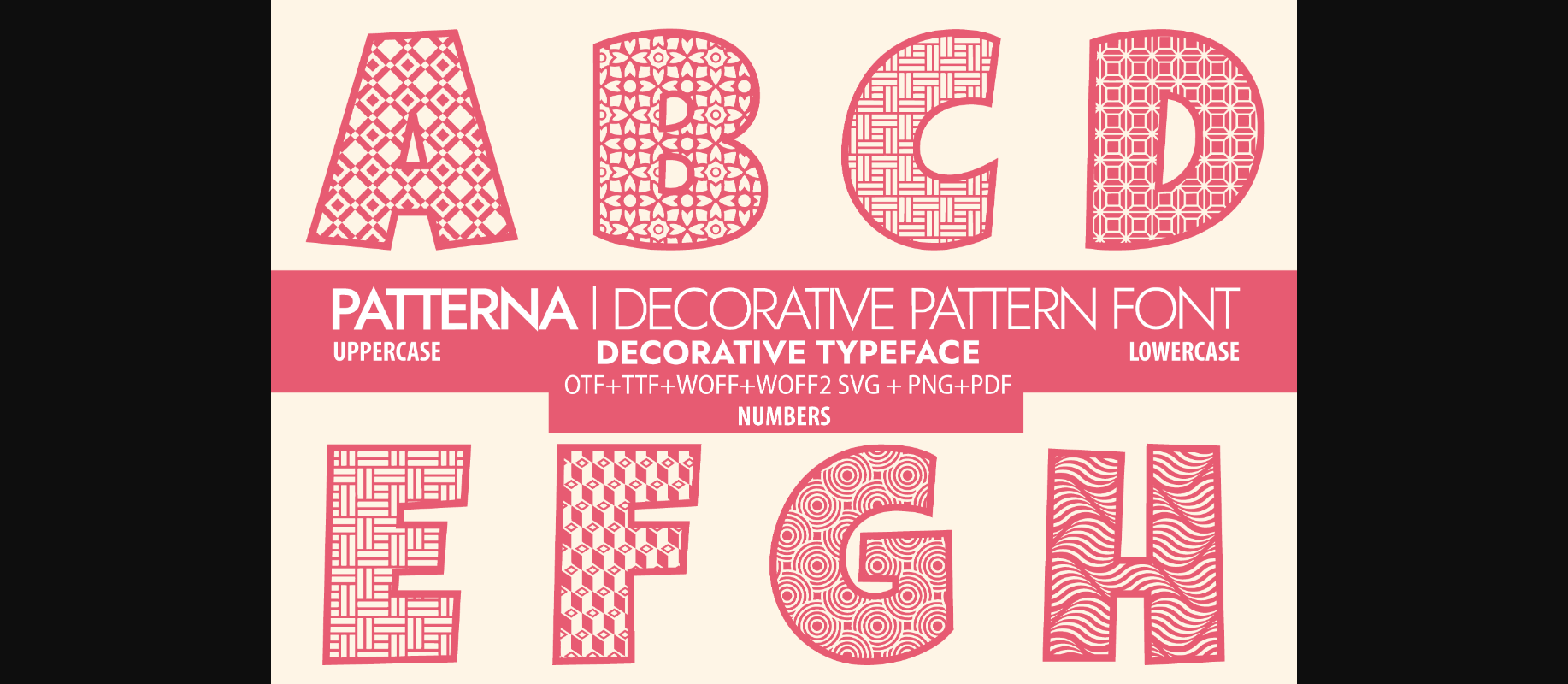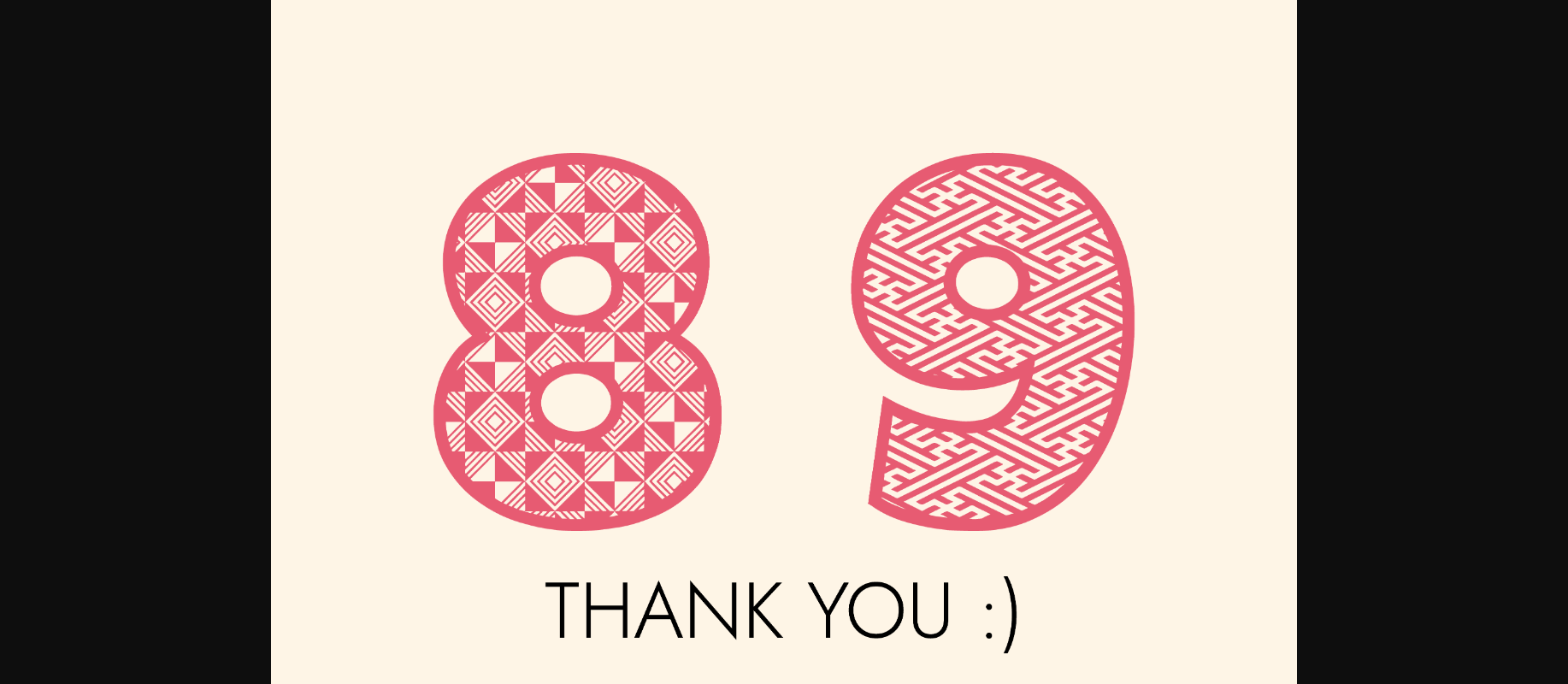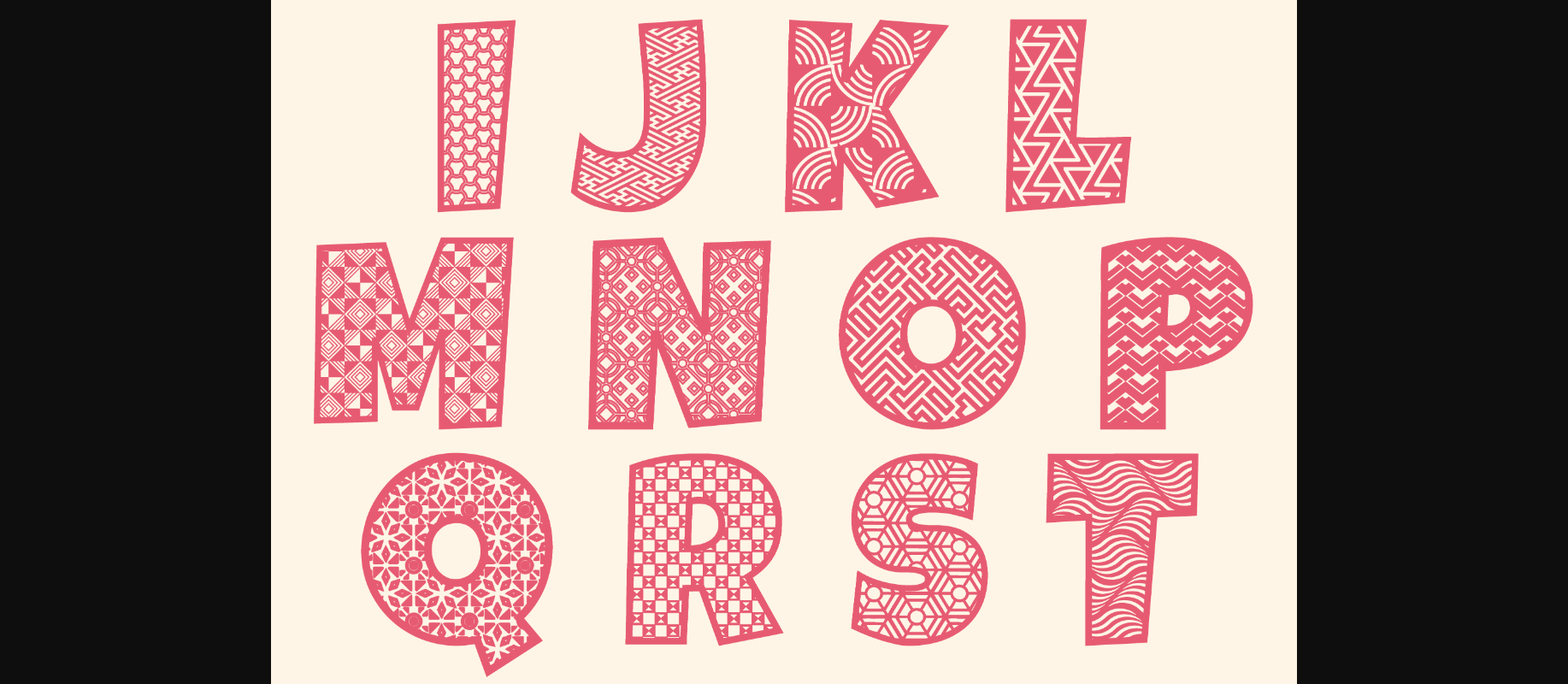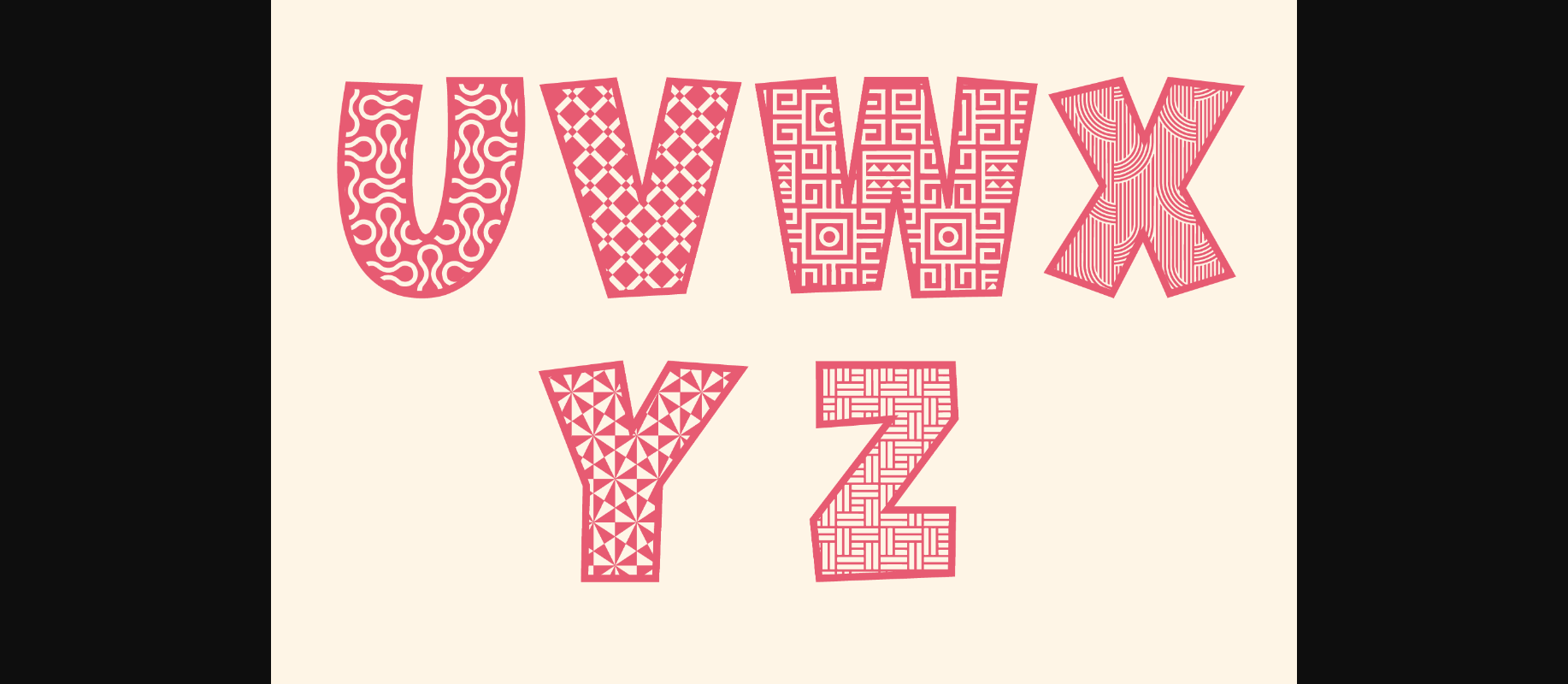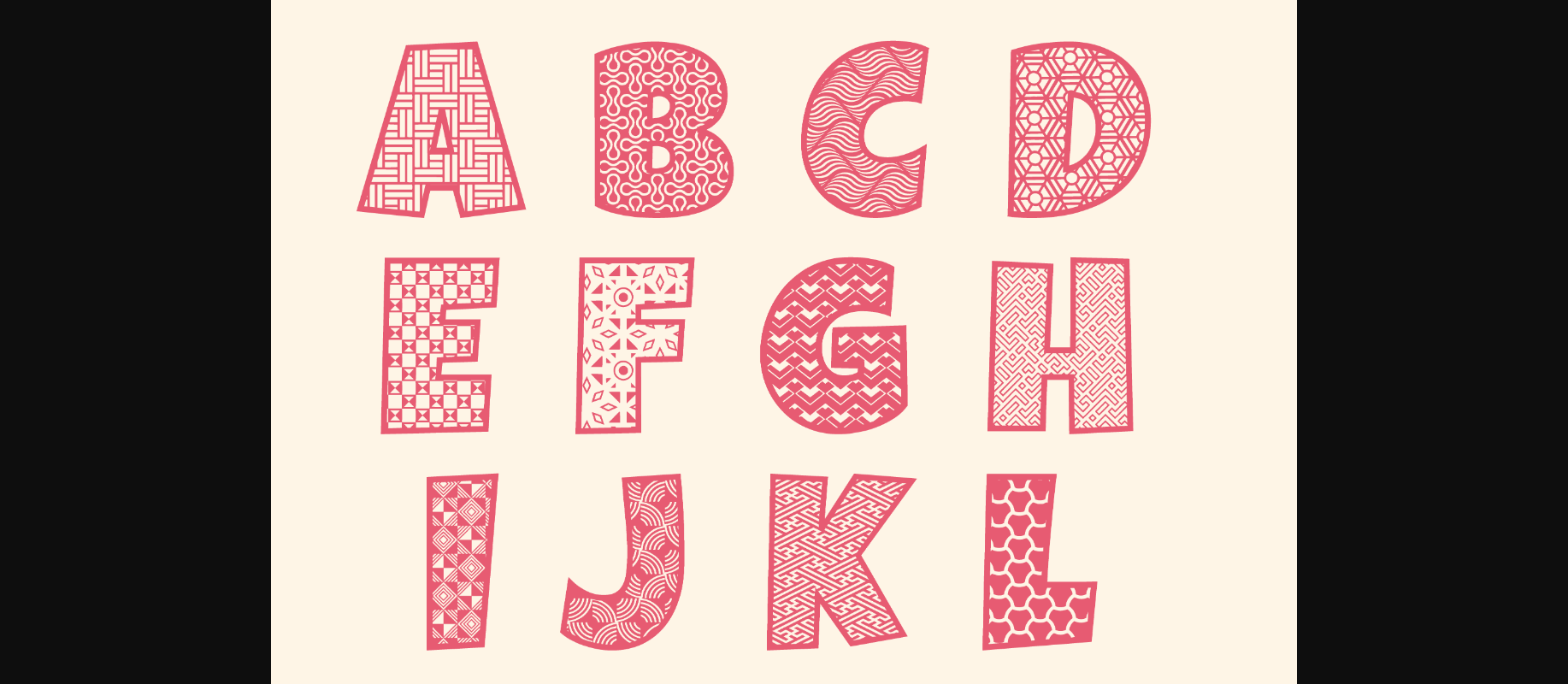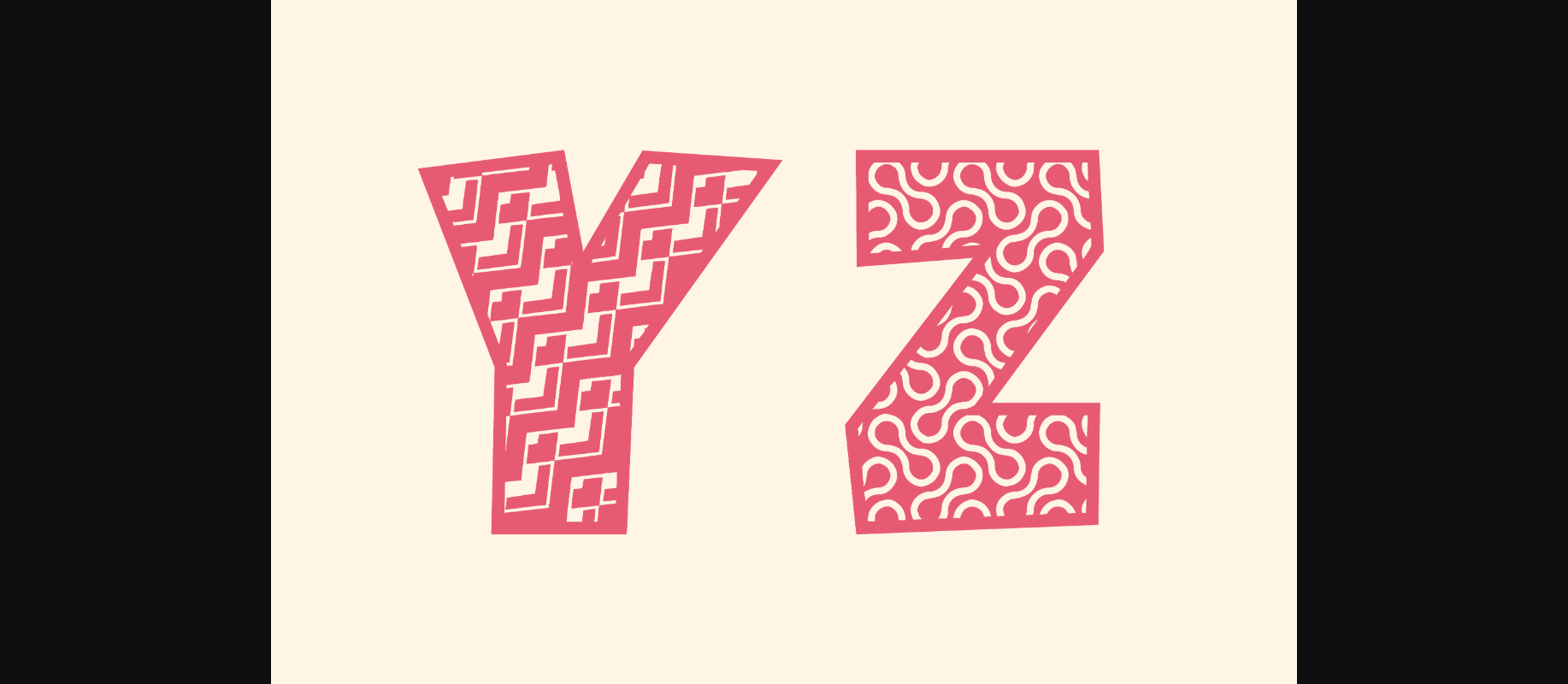
HomeDecorative FontsPatterna Font Decorative Fonts Patterna Font FacebookXPinterestWhatsApp 1 of 10 ... Patterna Font Poster 2... Patterna Font Poster 3... Patterna Font Poster 4... Patterna Font Poster 5... Patterna Font Poster 6... Patterna Font Poster 7... Patterna Font Poster 8... Patterna Font Poster 9... Patterna Font Poster 10... About Patterna Font Patterna is a uniquely designed and chic decorative font. It features thick letters and cute touches and it most certainly will elevate a wide range of creations. DOWNLOAD NOW People also explored Kids Forester Font Banana Smoothie Font Workaholic Font Stargazer Font Eye Balls Duo Font Fantastic Font Wisteria Font Baby Sunday Font Black Story Font 321 0 TagsPatterna Font Previous articleAble Lingo BSL 2 FontNext articleNona Font LEAVE A REPLY Cancel reply Comment: Please enter your comment! Name:* Please enter your name here Email:* You have entered an incorrect email address! Please enter your email address here Website: Save my name, email, and website in this browser for the next time I comment. Personal Use Free Valentine Chips Personal Use Free Read more about this font Winner Personal Use Free Read more about this font Welcome Creative Personal Use Free Read more about this font Styledeep Personal Use Free Read more about this font BLOG 5 Fonts That Will Dominate Design Trends in 2026 5 Fonts for 2026 That Will Dominate Design Trends Typography plays a critical role in visual communication, and as we look ahead to 2026, it’s... Free vs Paid Fonts: Why Investing in Premium Fonts Is Worth It To increase your work productivity, choose the most readable fonts. Using Fonts in Digital Marketing: Tips to Strengthen Your Brand Identity